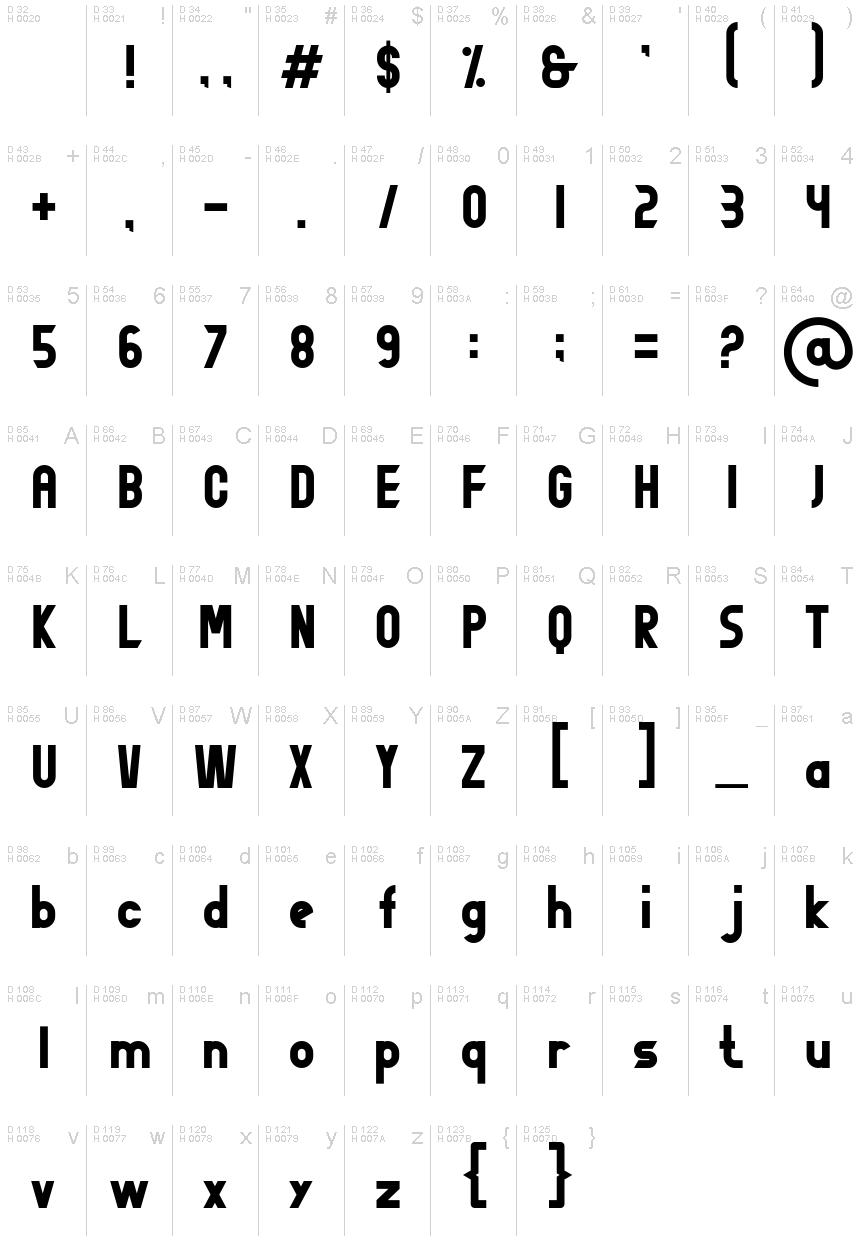
NAHONY
Nahony font, crafted by designer Gilang Ternadho, stands out with its bold sans serif style and condensed width. This free font exudes a modern and sleek aesthetic, making it perfect for eye-catching headlines and contemporary branding projects. Its distinctively narrow letterforms give it a strong presence while maintaining readability. Whether you're designing web graphics or print media, Nahony's unique characteristics ensure your text commands attention.